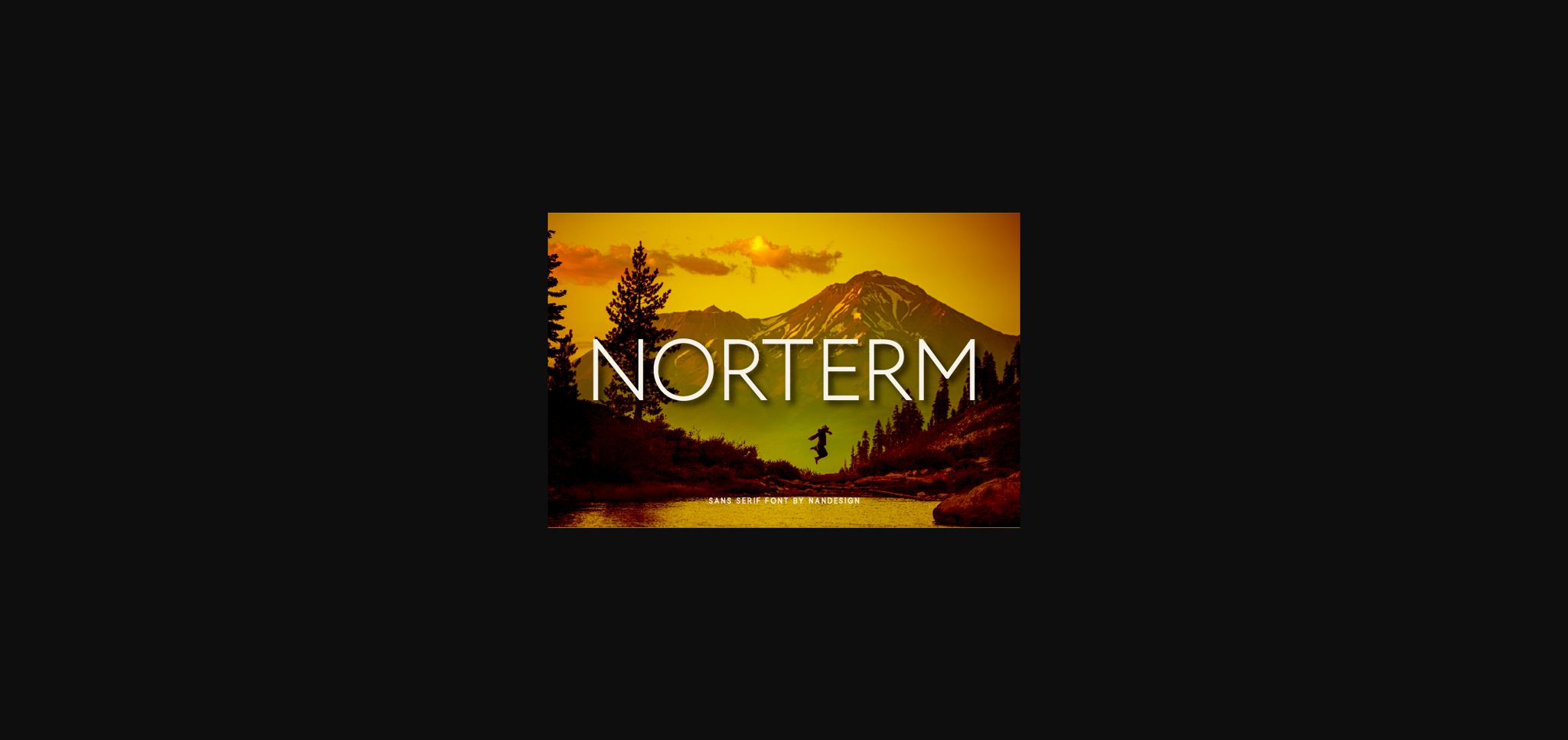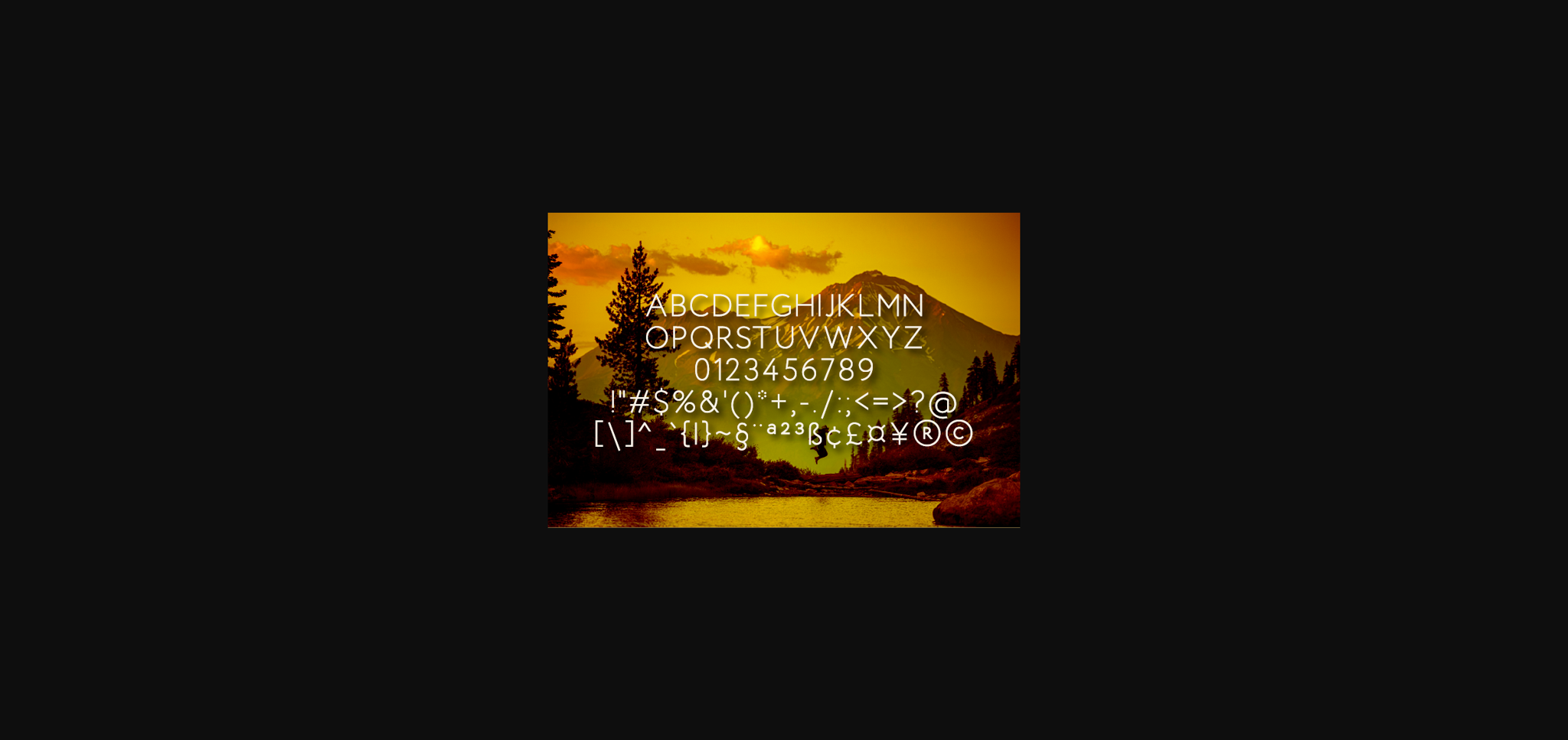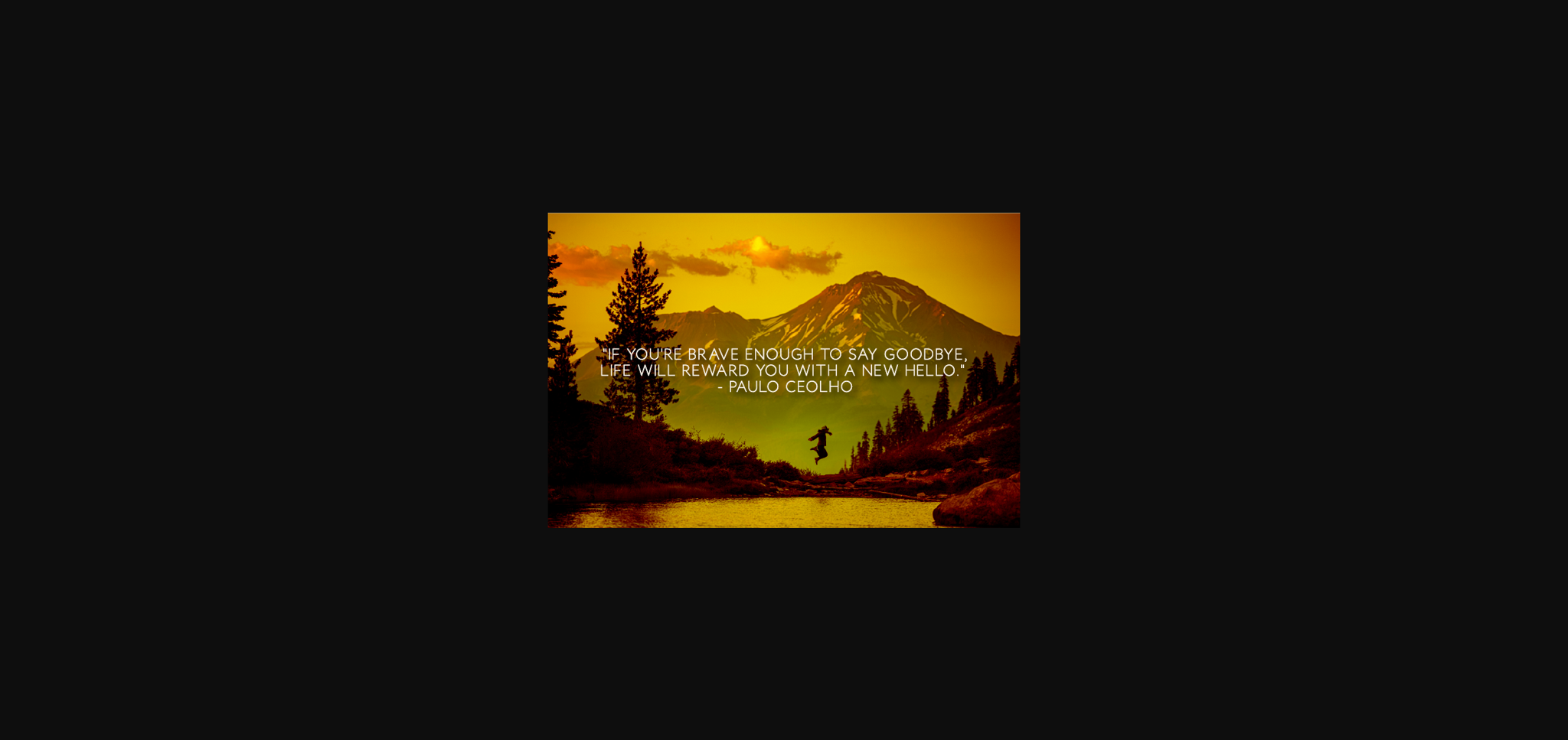
About Norterm Font
Norterm is a natural sans serif, designed to complement every project you’re working on. Use it to create beautiful headings, gorgeous invitations, stunning logos, and so much more!